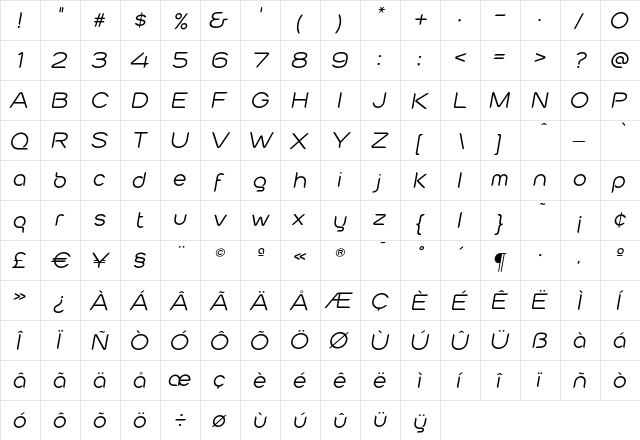
Cabourg OT RegularOblique
| Foundry | Gustavo Piqueira |
| Designer | Gustavo Piqueira |
Design Context for Cabourg OT Typeface
Cabourg OT offers clean, dependable letterforms without strong stylistic allegiance, making it a practical choice for designers who need flexibility. Its italic angle brings a sense of urgency and motion to the letterforms.
Pro Tip: Use Cabourg OT for emphasis, pull quotes, and subheadings where its slanted energy can add rhythm to the layout.